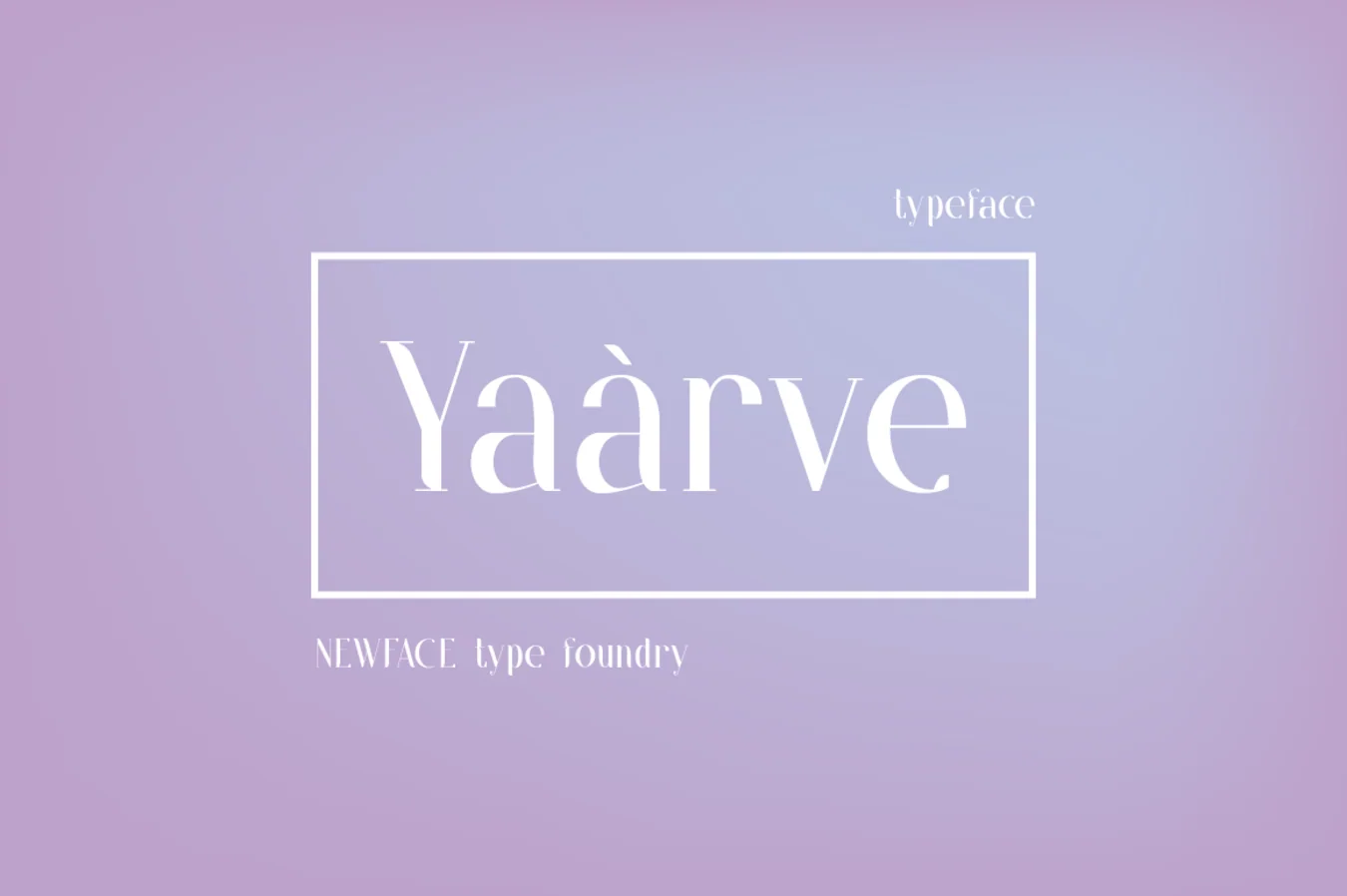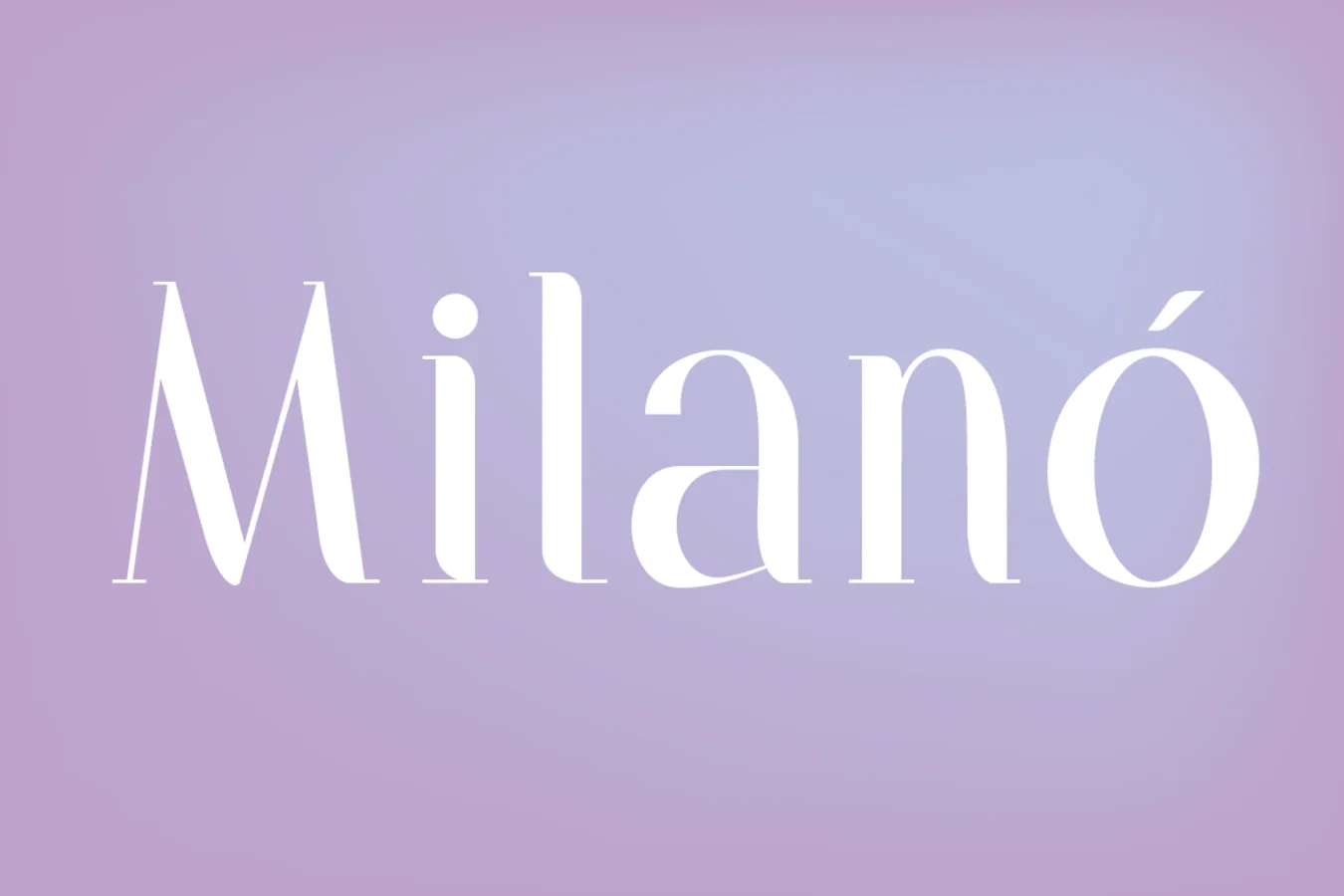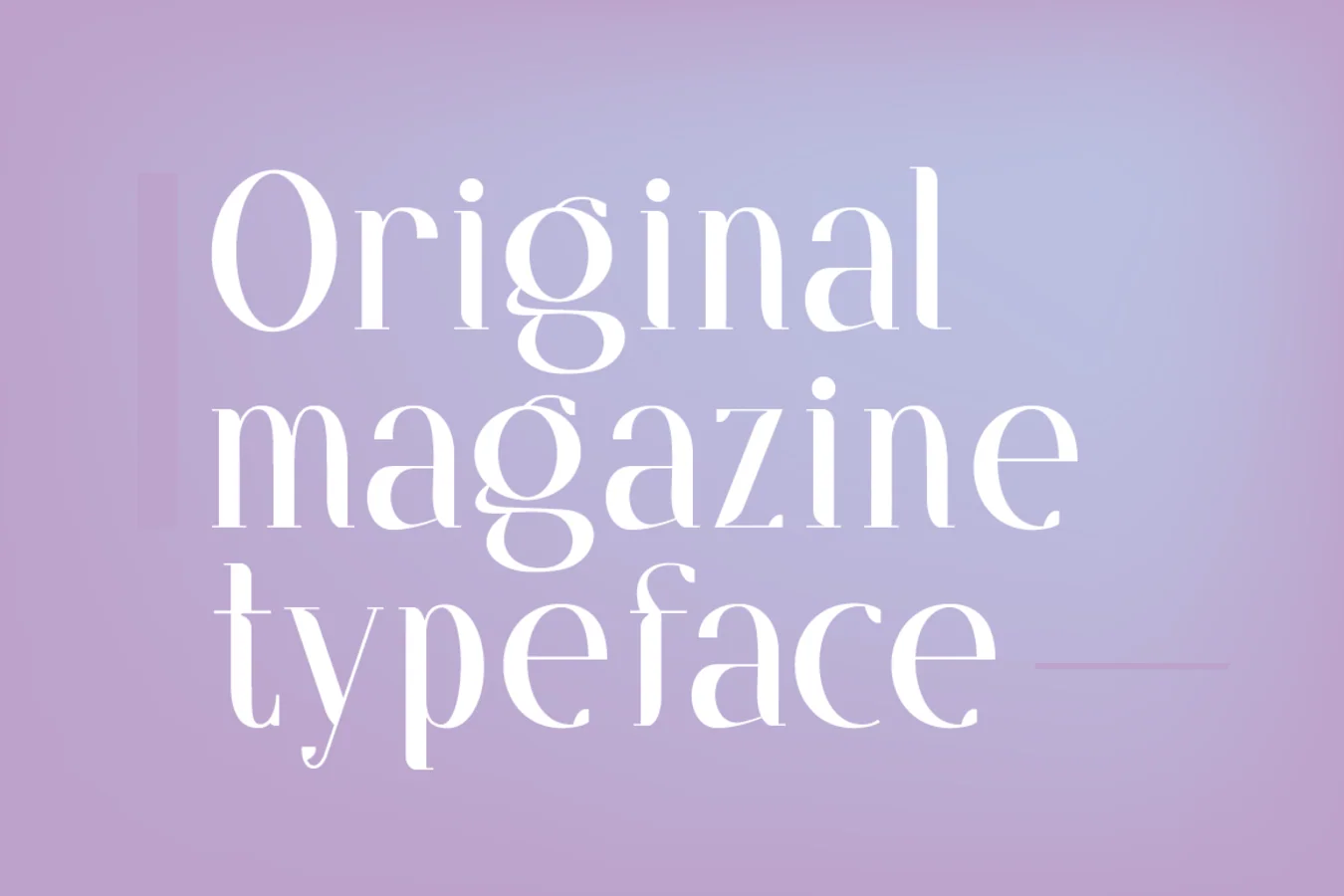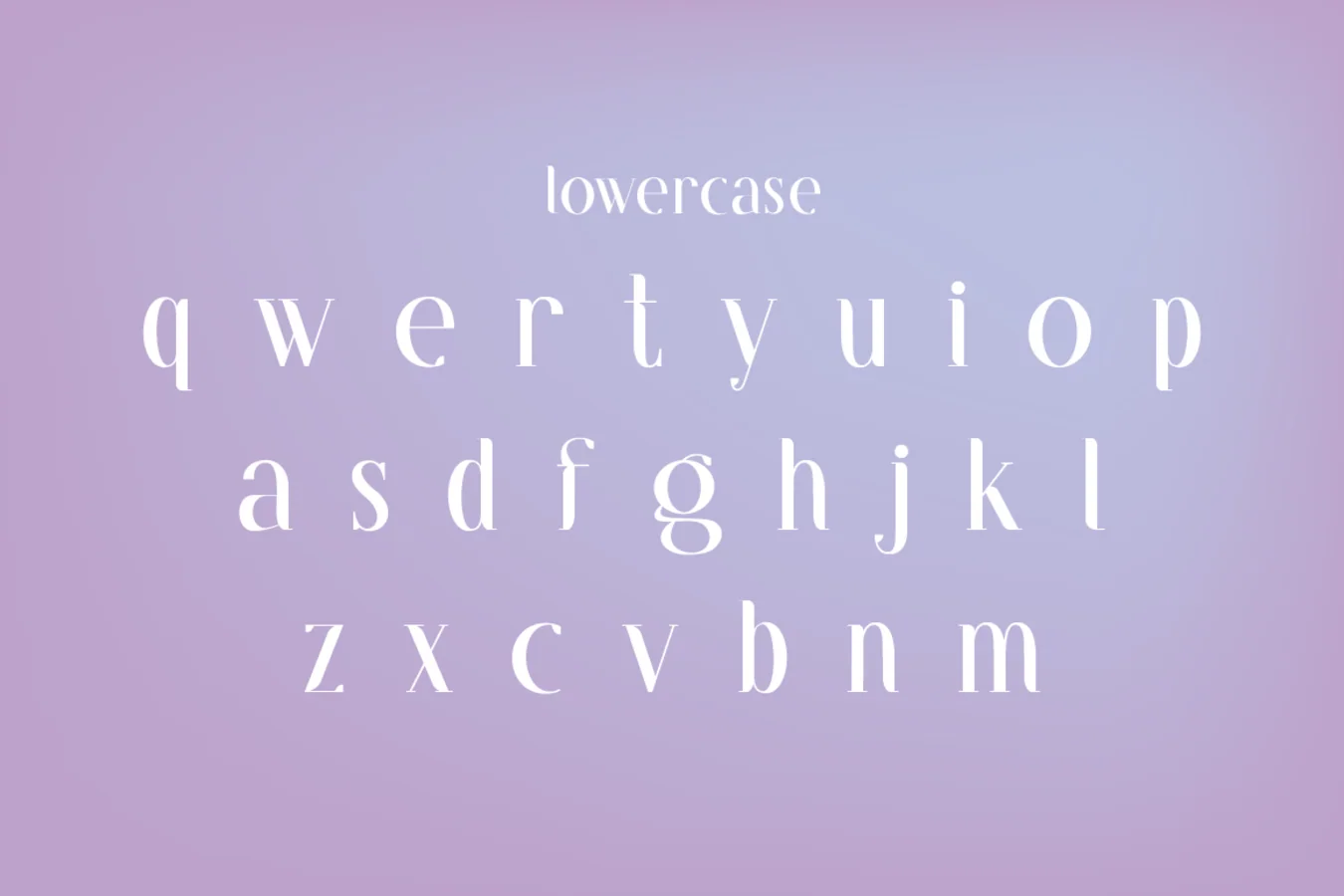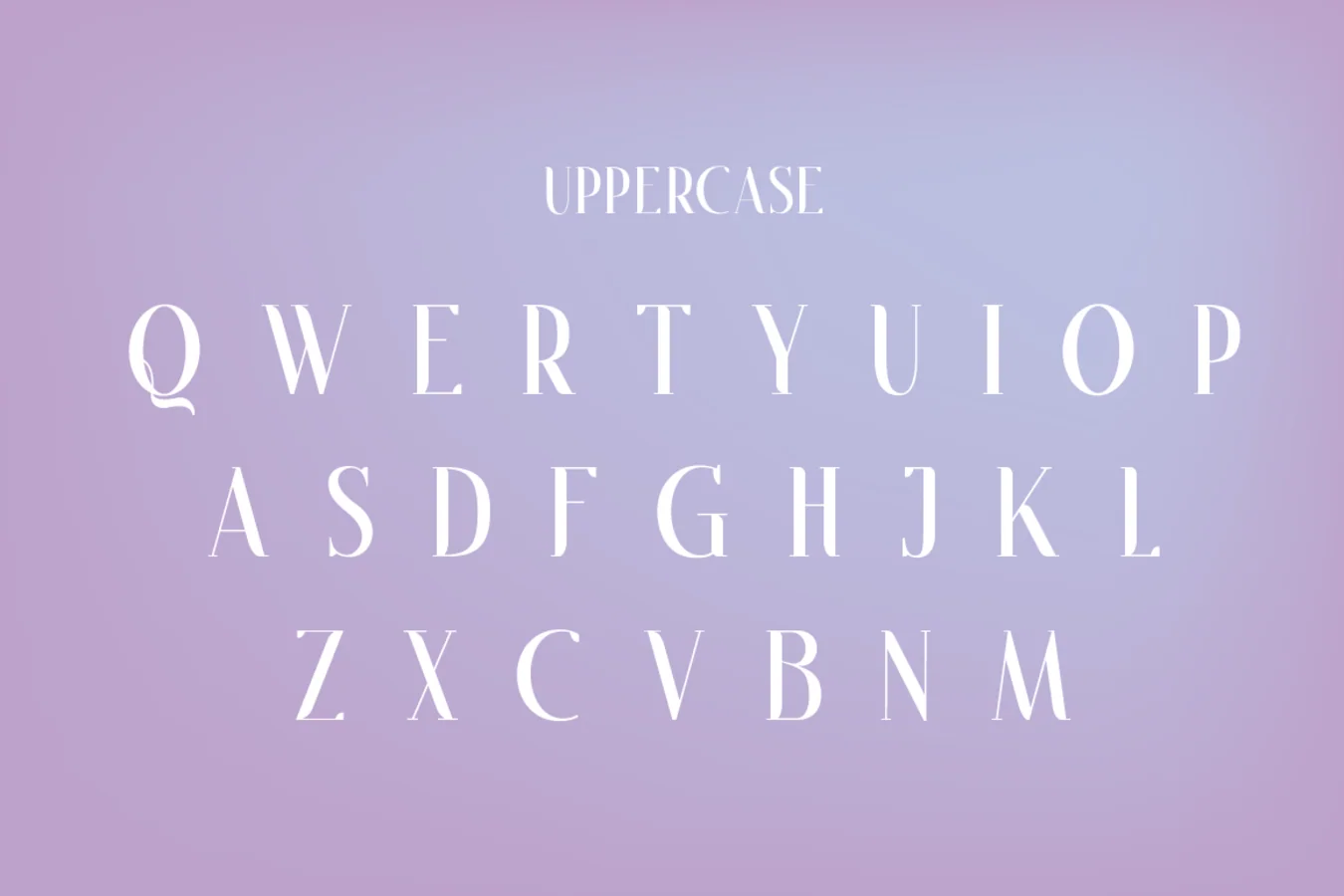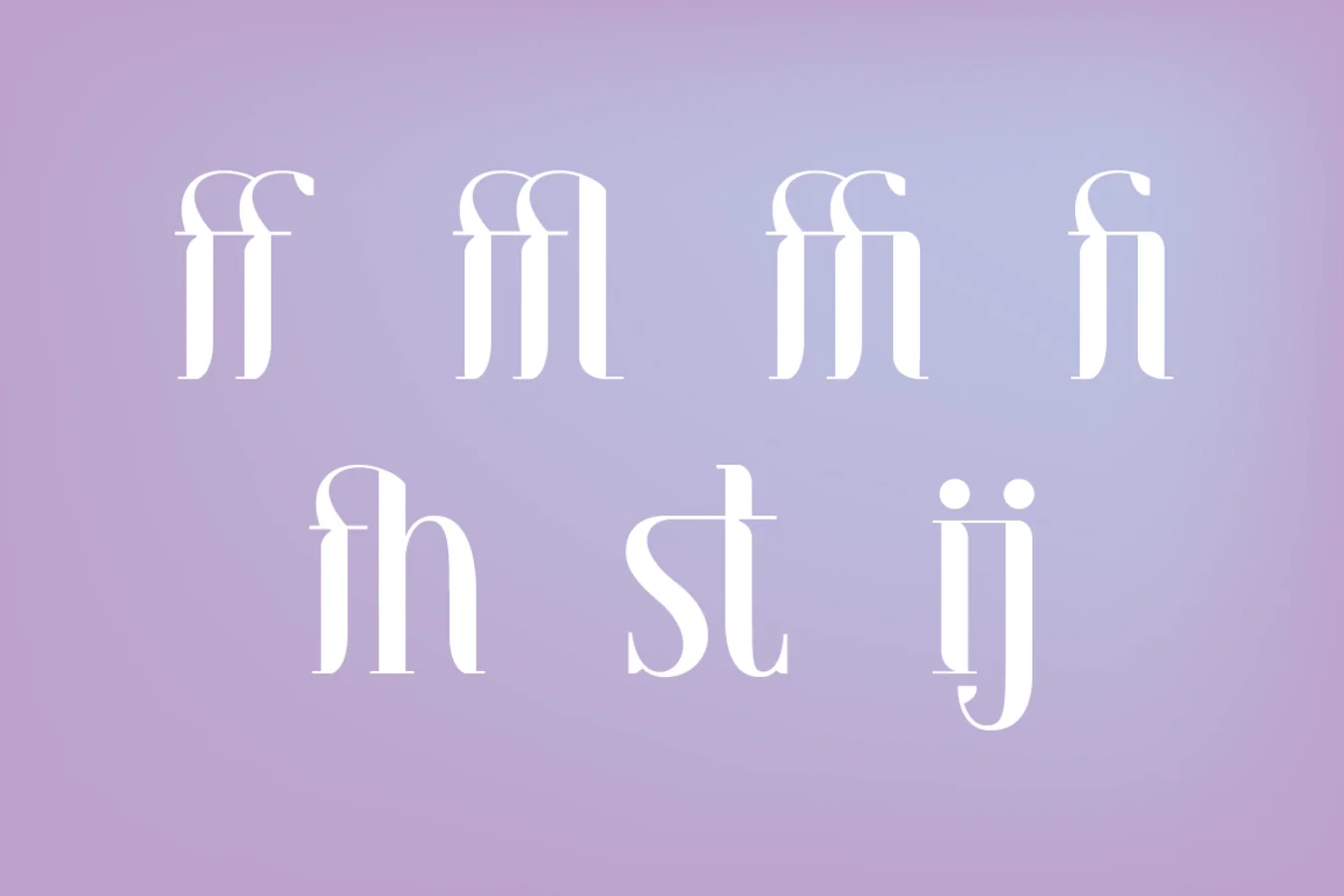
Yaarve Typeface
Bold, strikingly stylish font design
Latin characters with diacritics
Editorial magazine aesthetic
Over 1500 kerning pairs
Add a fresh, bold typeface to your font library. Yaarve delivers strong, expressive letterforms for stylish print and web projects. It comes with standard ligatures, 1,500+ kerning pairs, Latin alphabet support, and diacritics, ready to enhance your next beautiful design.